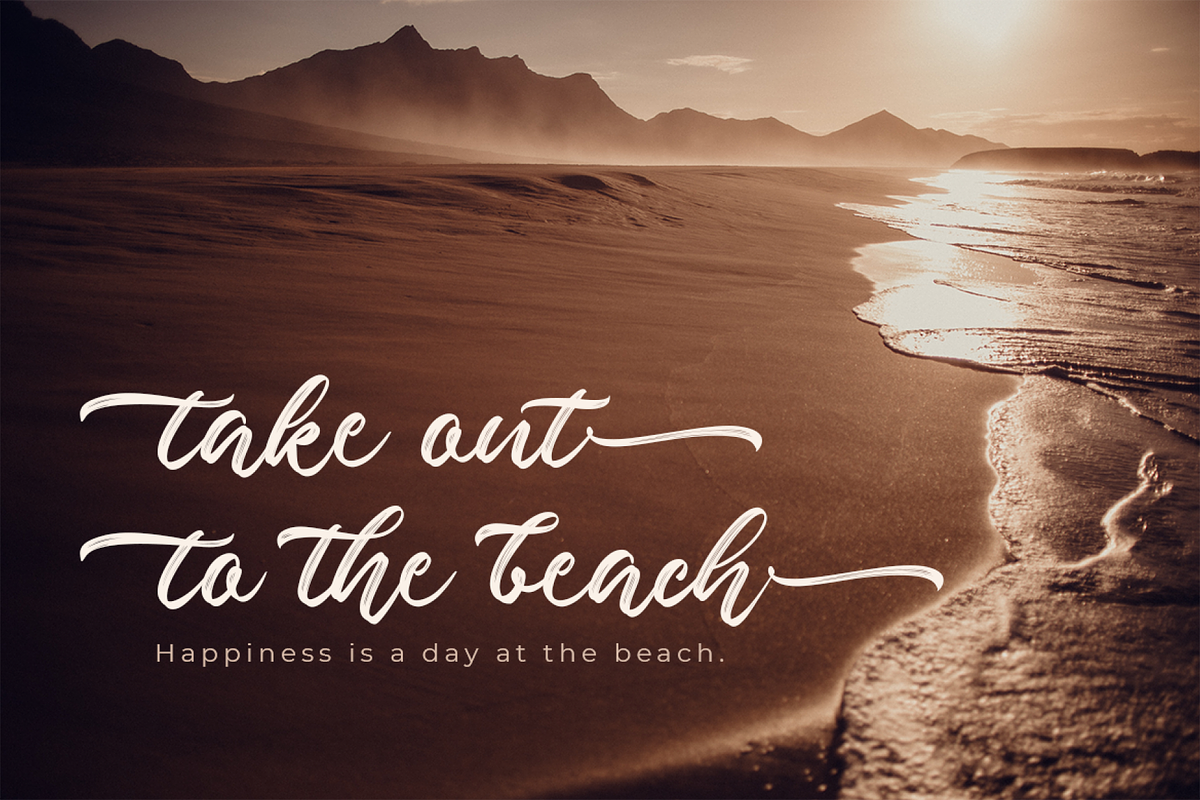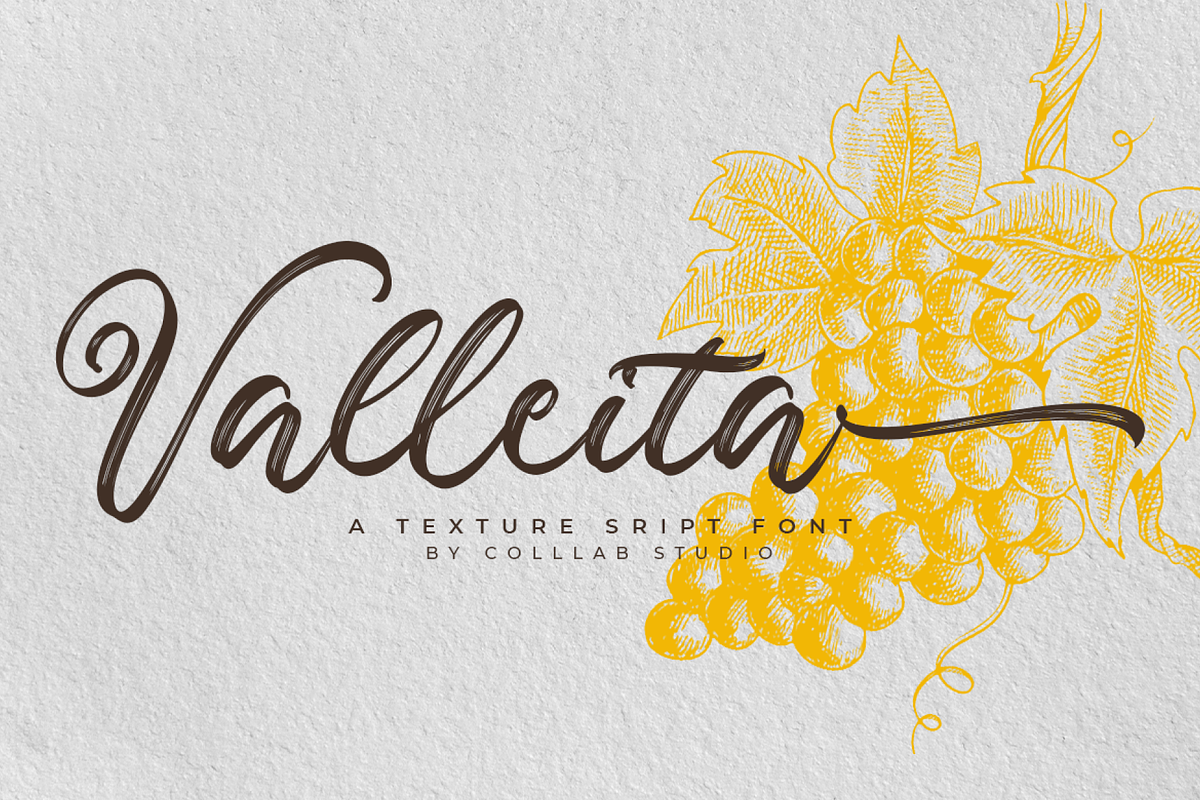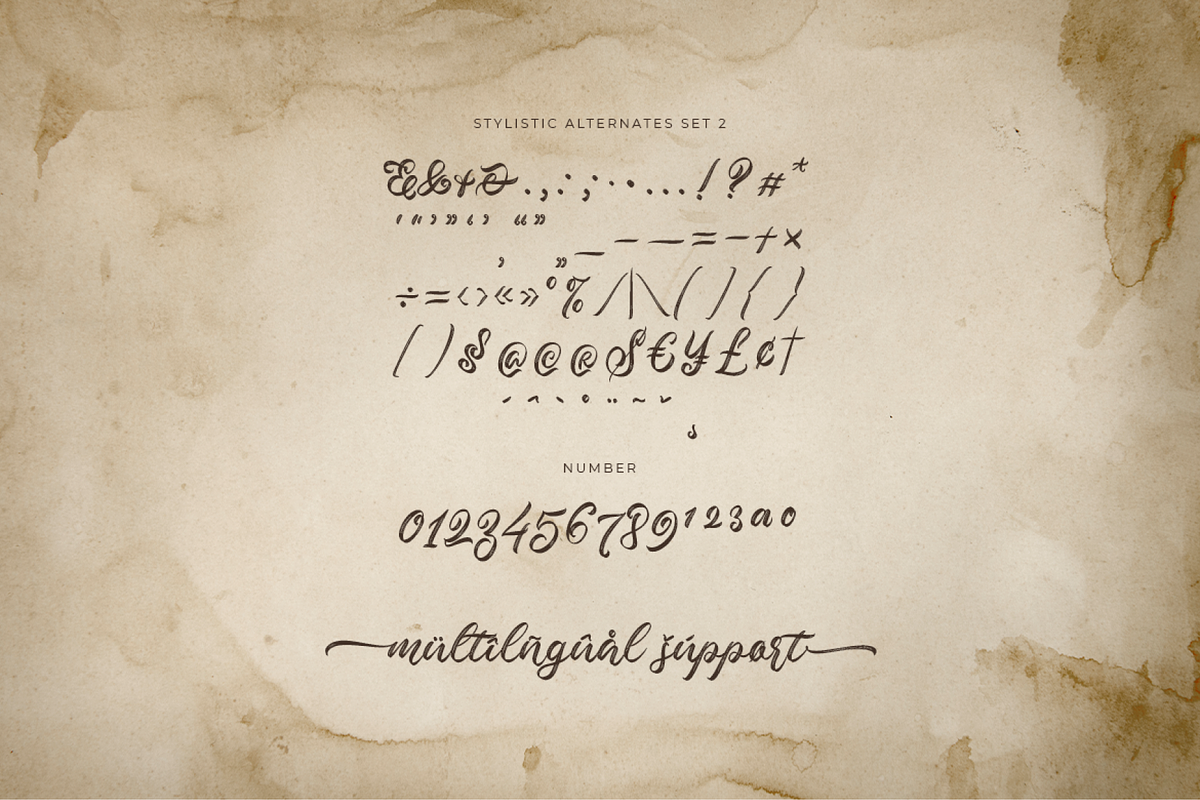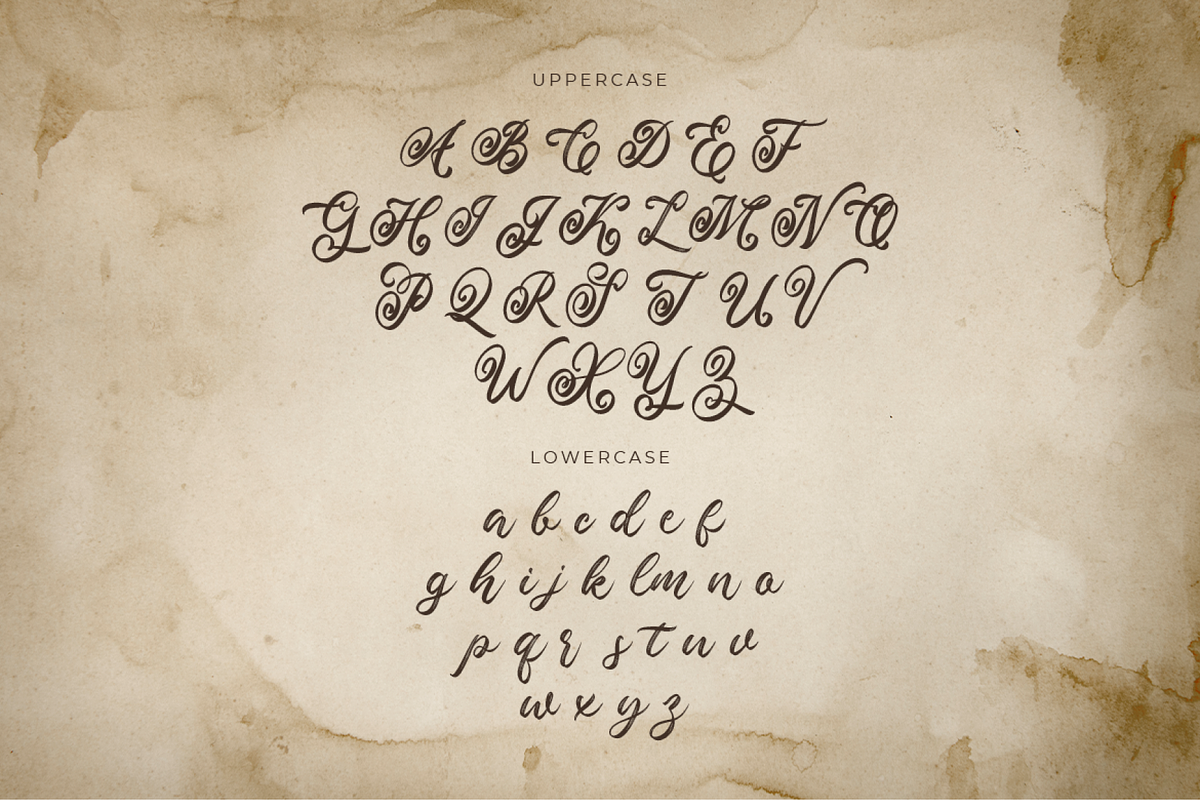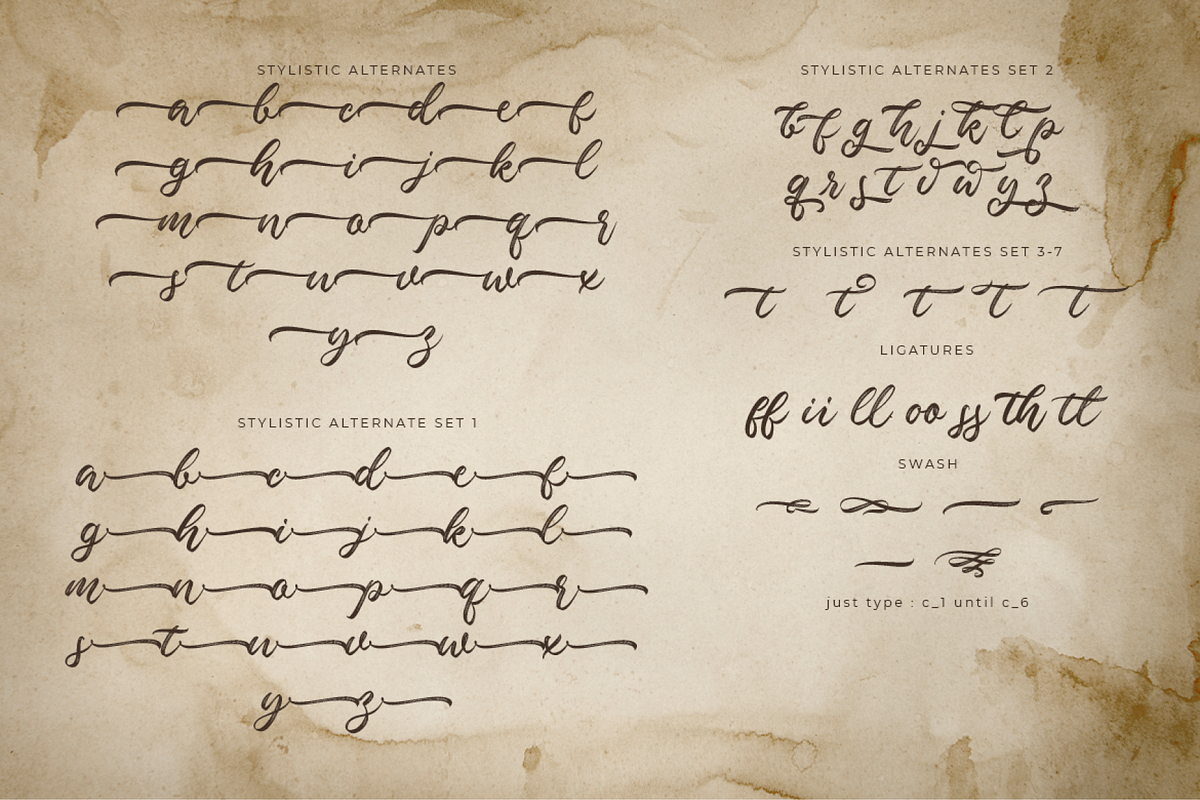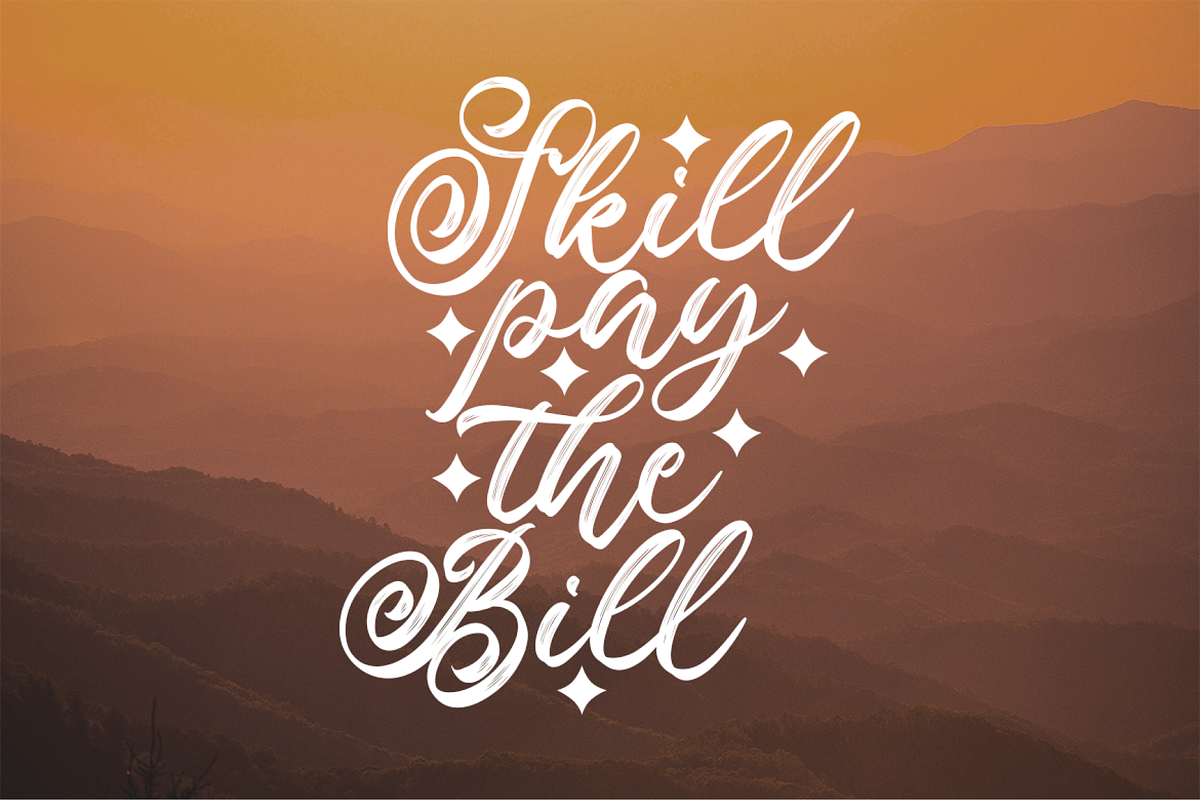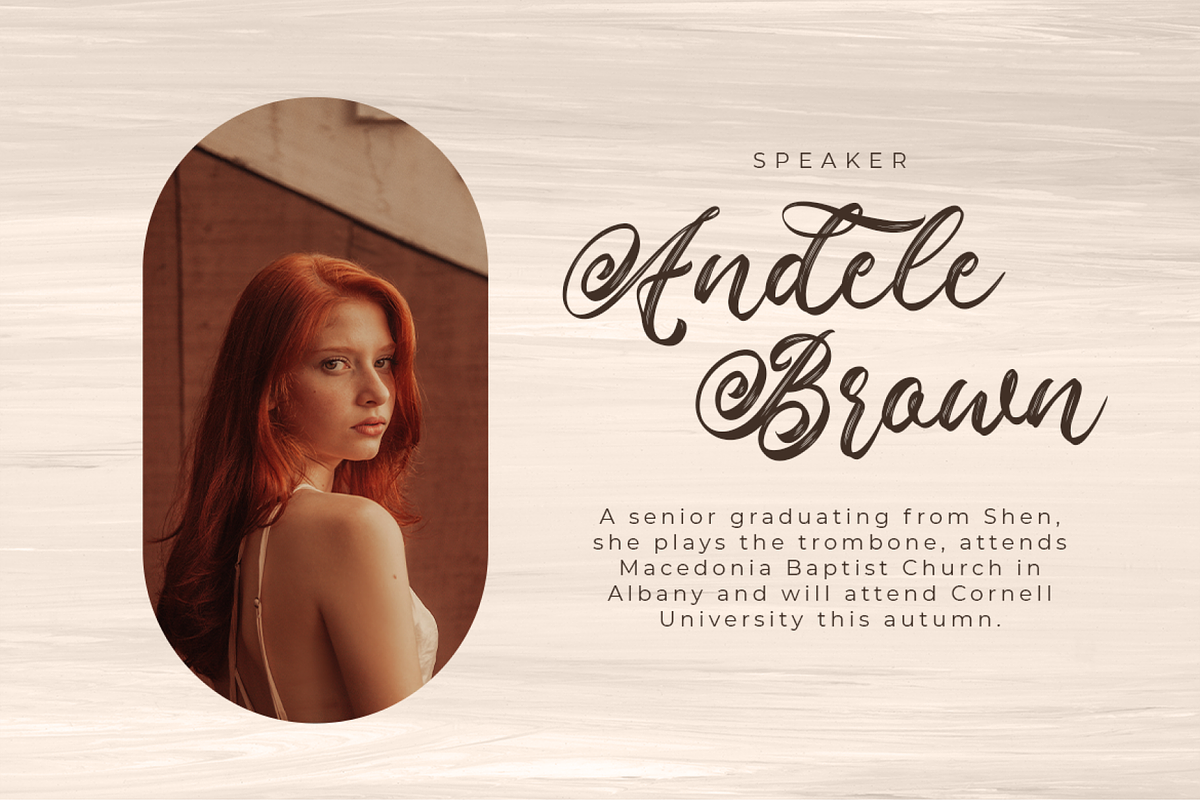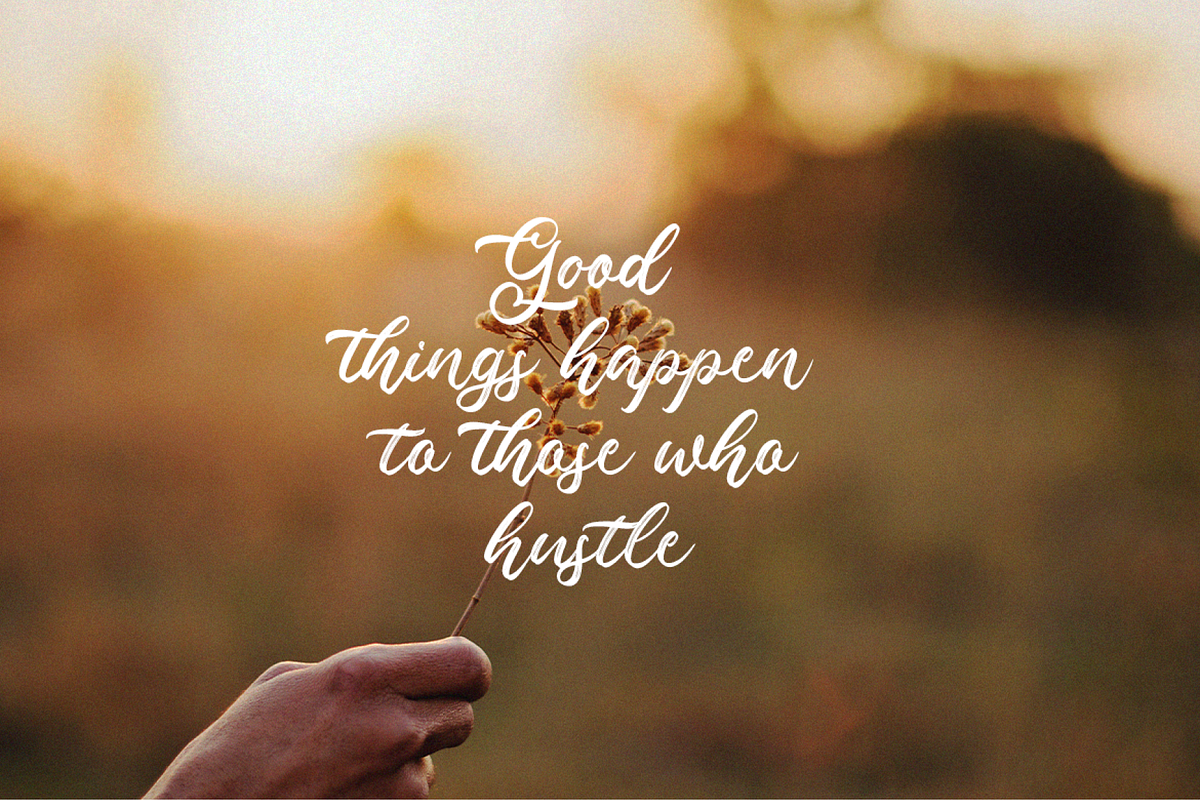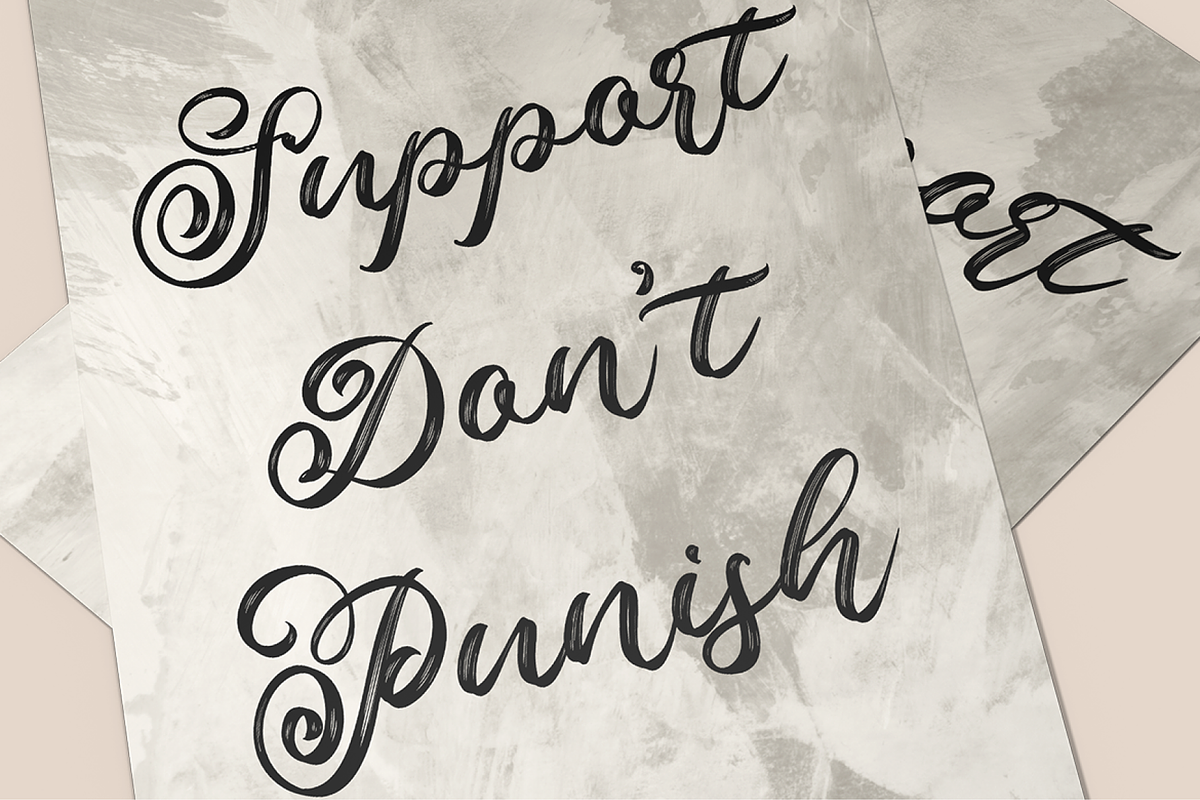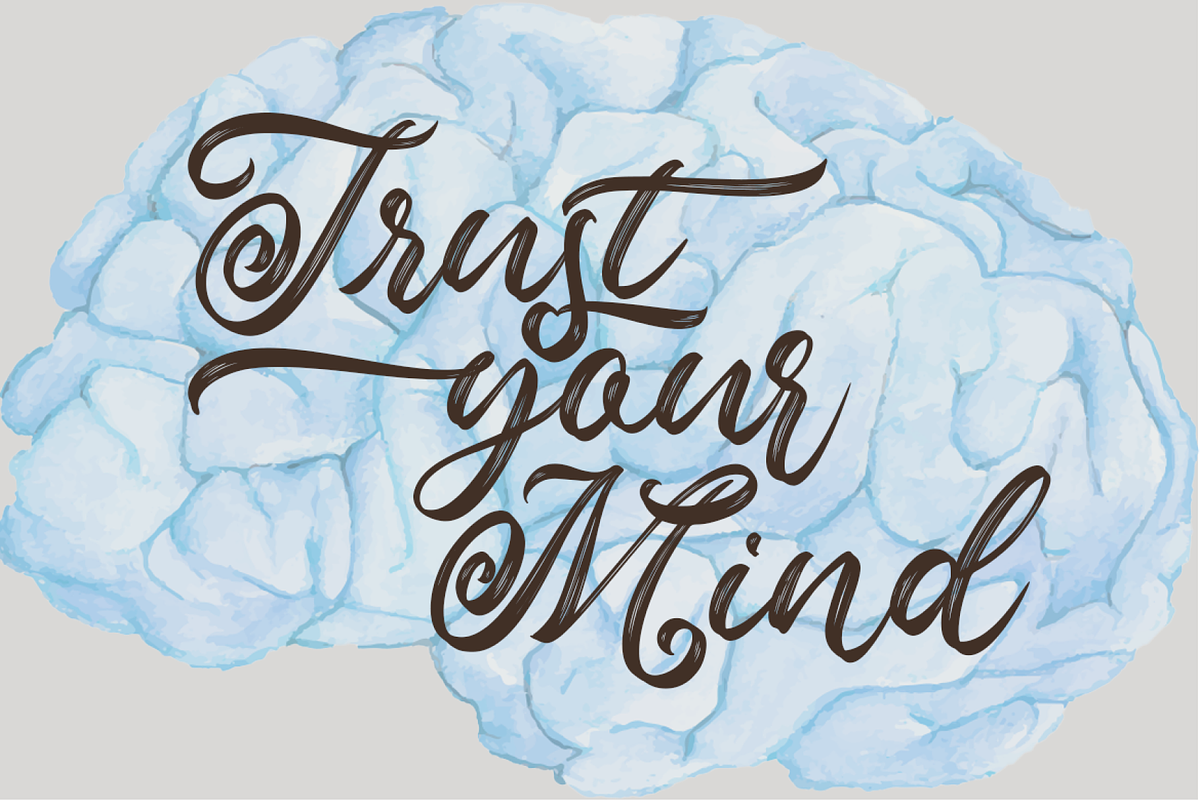
Valleita Script
INTRODUCING, Valleita Script, Inspired by antique lettering, our design pays careful attention to curves, serifs and ligatures. Each letter was constructed using thousands of human-timestamped strokes to achieve the perfection of an old pen from the 1500s. Admirers of charming brush scripts will appreciate the elegant, feminine beauty of valleita script. Create luxurious artwork with a fanciful touch.
Valleita Script is a highly stylish textured script font with premium quality. It has a great design and suitable for various types of projects including posters, logos, album covers, flyers, etc, with a wide range of swashes and alternates. We have done some nice logo designs using Valleita Script.
- PUA ENCODED
- 287 Glyps,
- 77 Stylistic Alternates
- Ligatures & contextual alternates
- Multilanguage Support
- Set of beginning swashed lowercase
- Set of ending swashed lowercase
What Languages are supported ?
- Multilingual Support is included for the following languages: Cornish, Danish, English, Estonian, Faroese, Filipino, Finnish, French, Friulian, Galician, German (Switzerland), Gusii, Icelandic, Indonesian, Irish, Italian, Kabuverdianu, Kalenjin, Kinyarwanda, Luo, Luxembourgish,Norwegian Bokmål, Norwegian Nynorsk, Portuguese, Romansh, Scottish Gaelic, Spanish, Swedish, Swiss German.